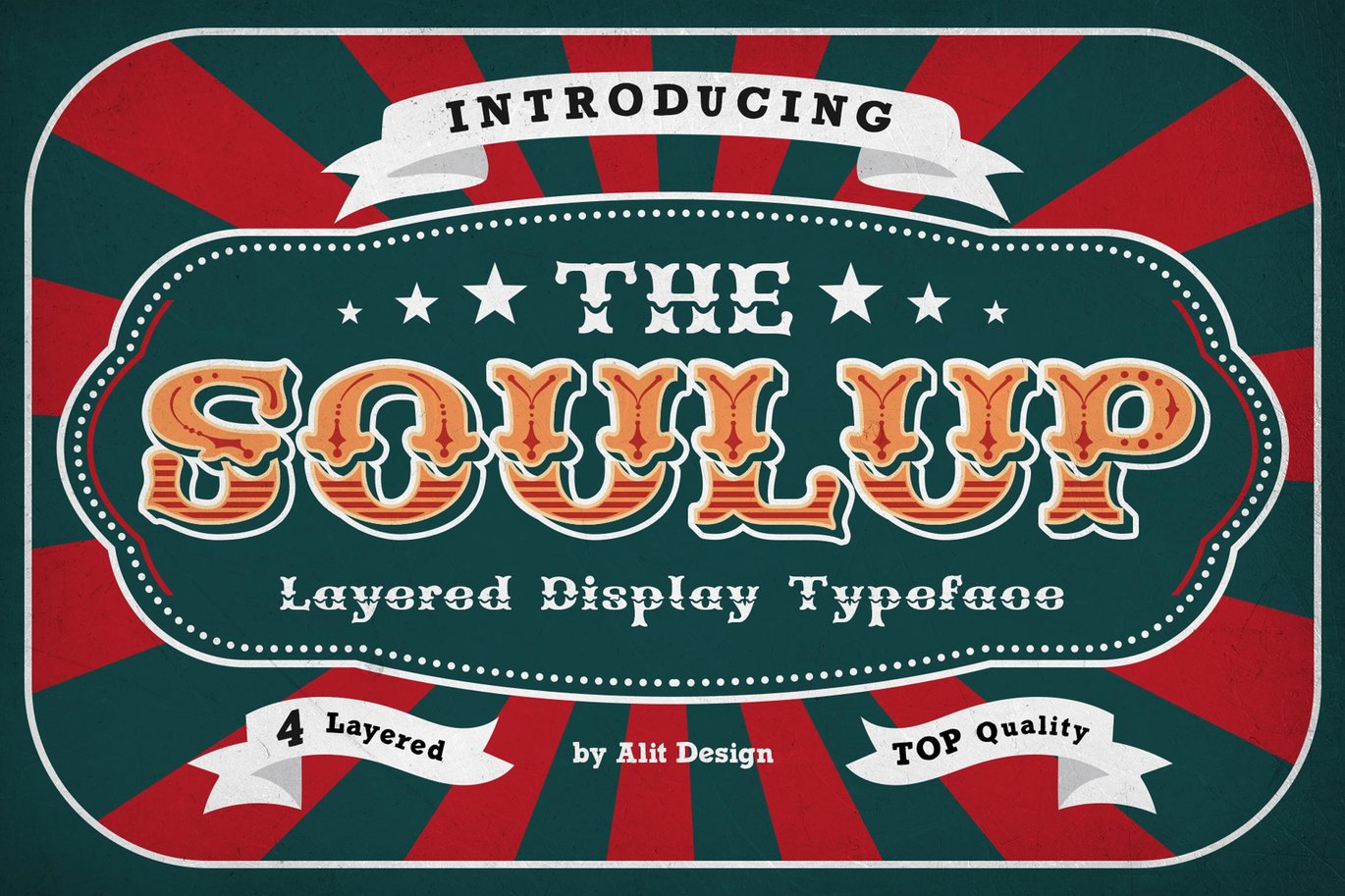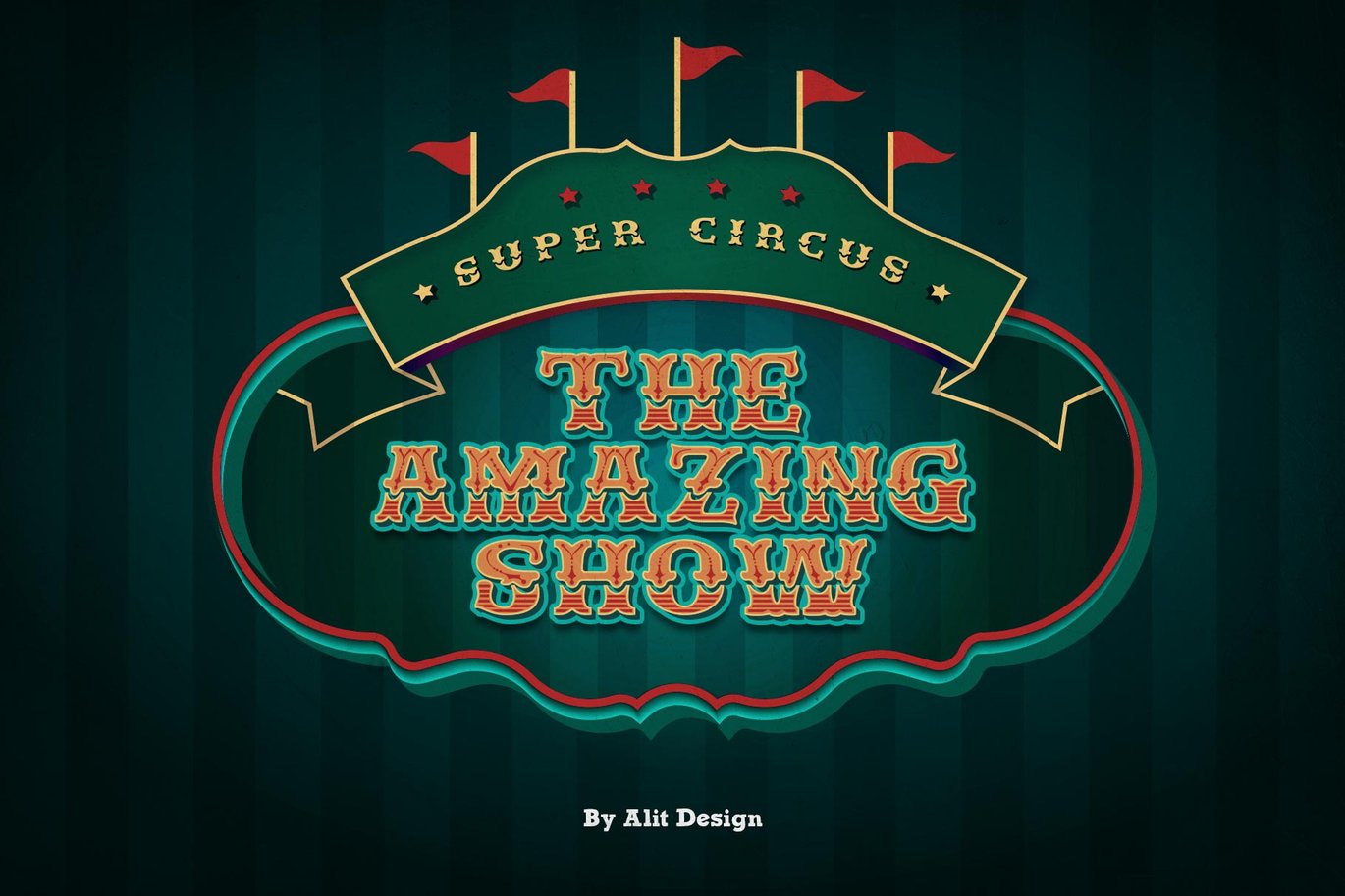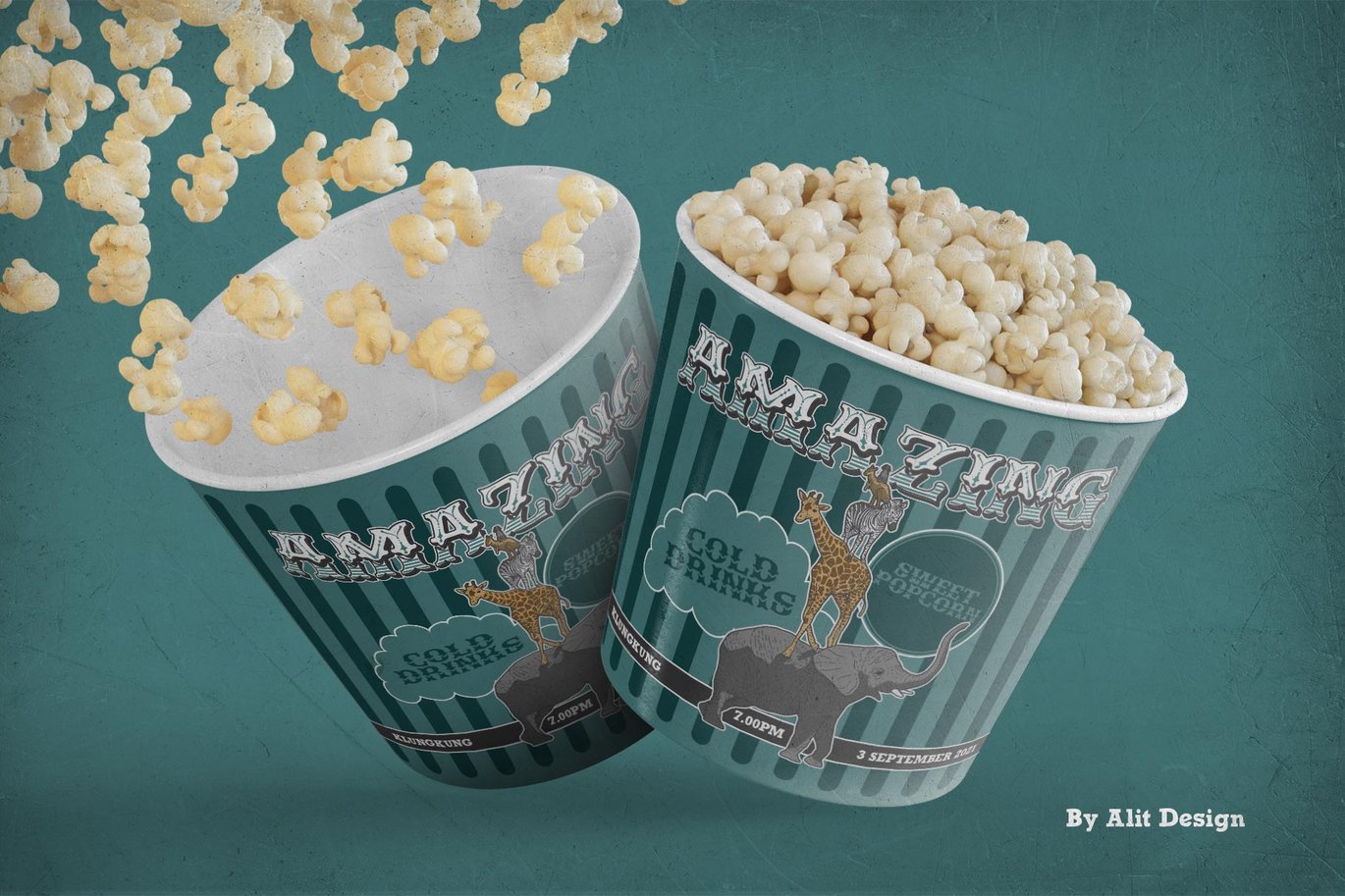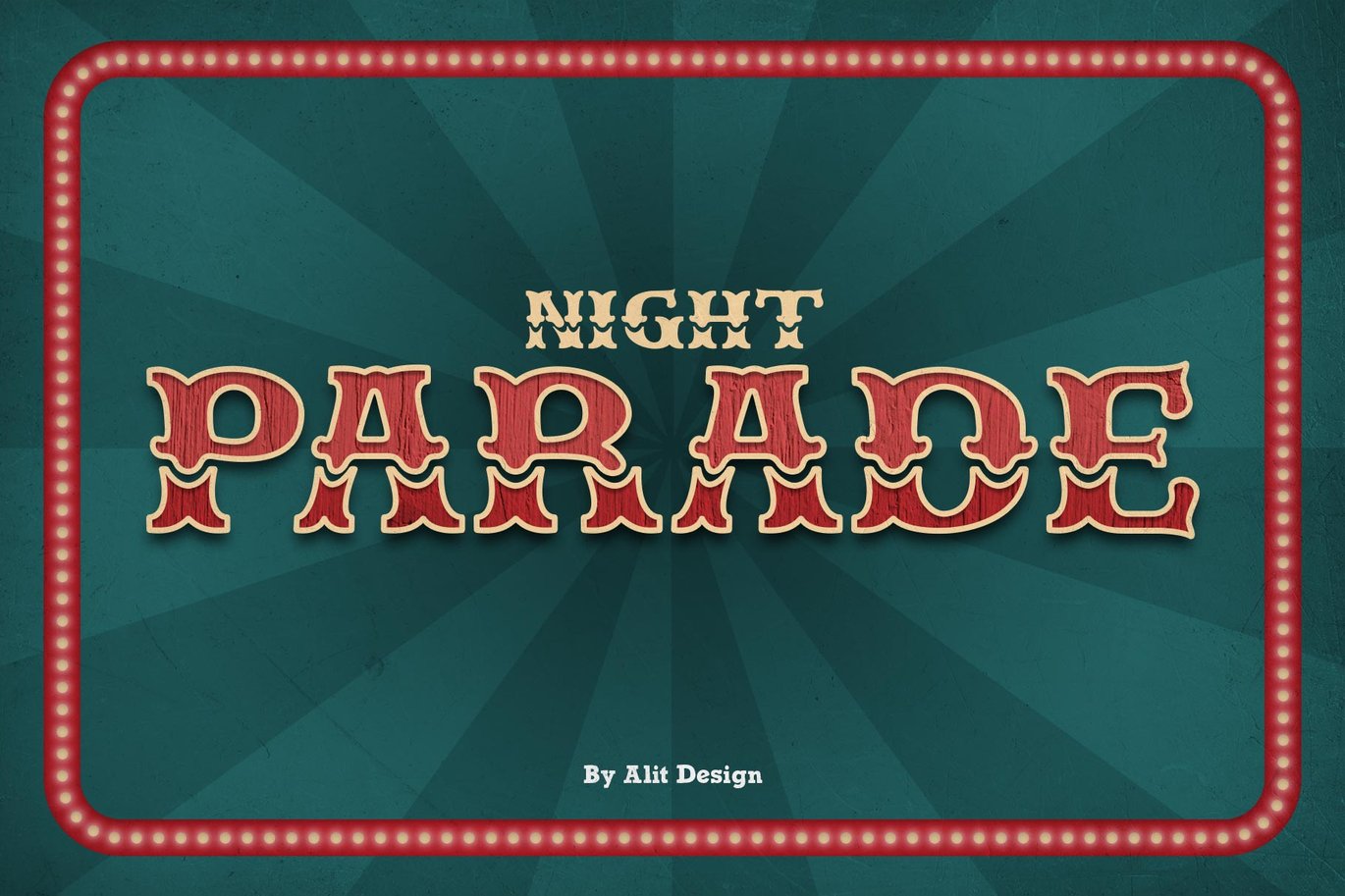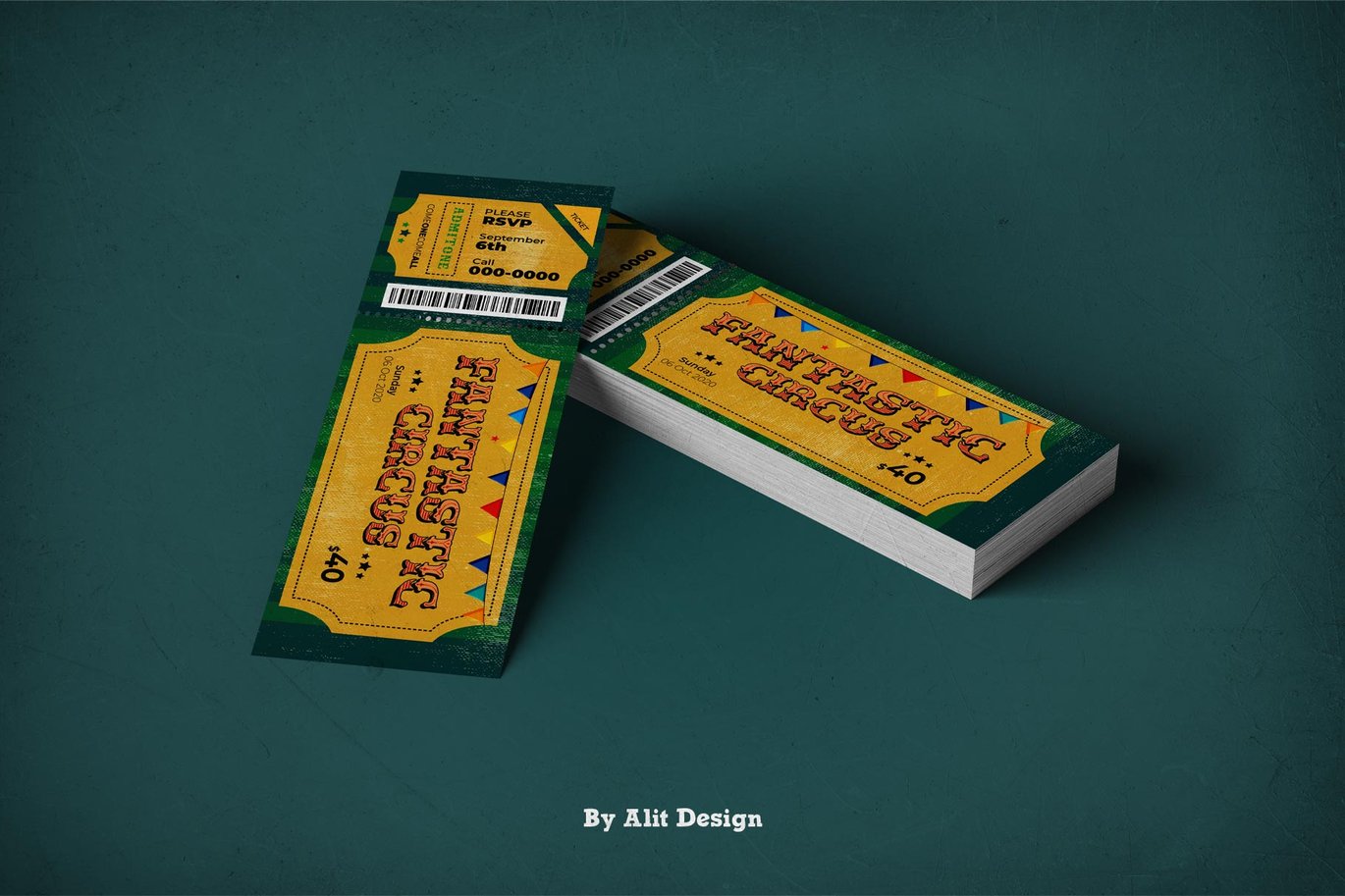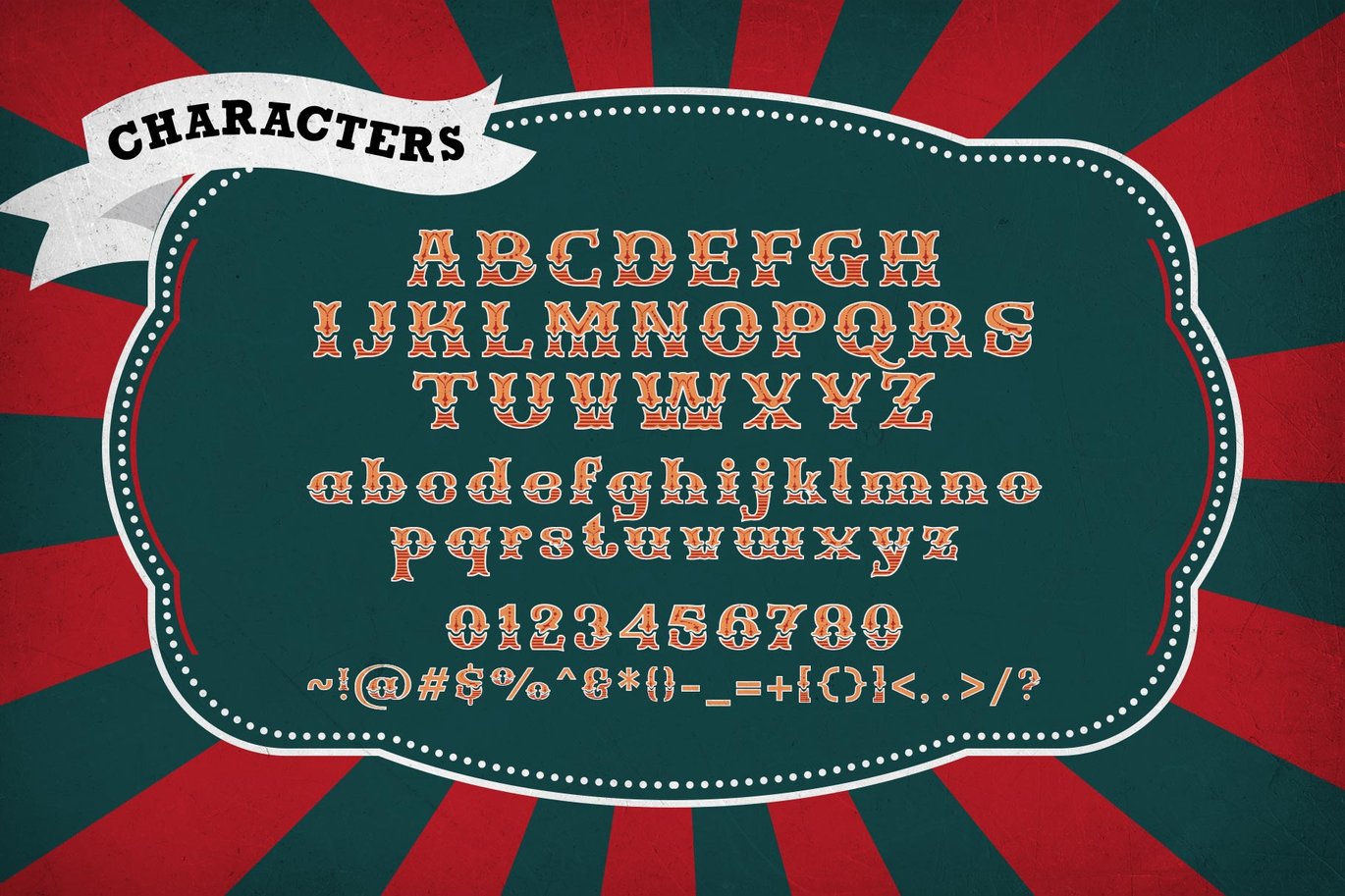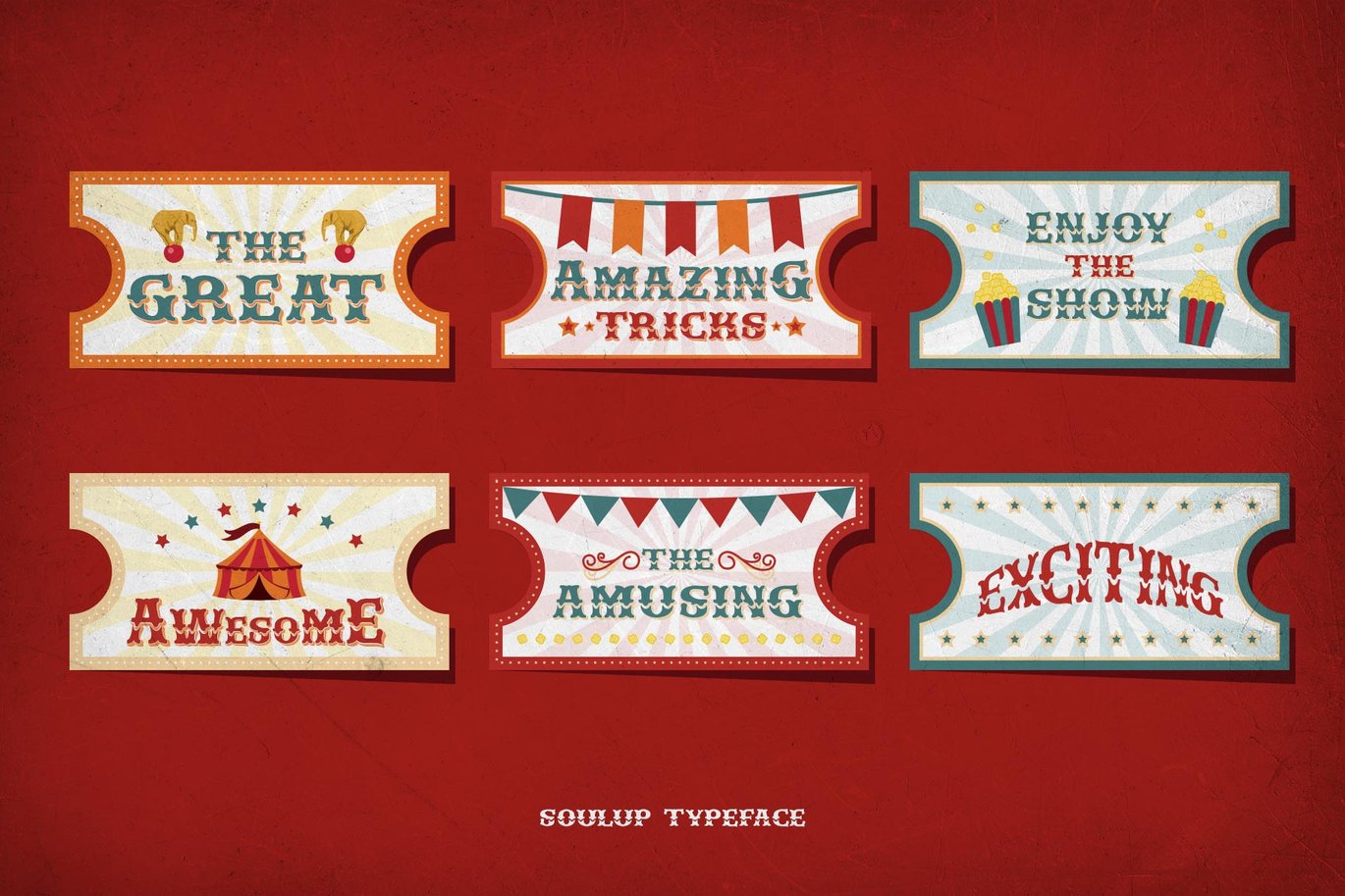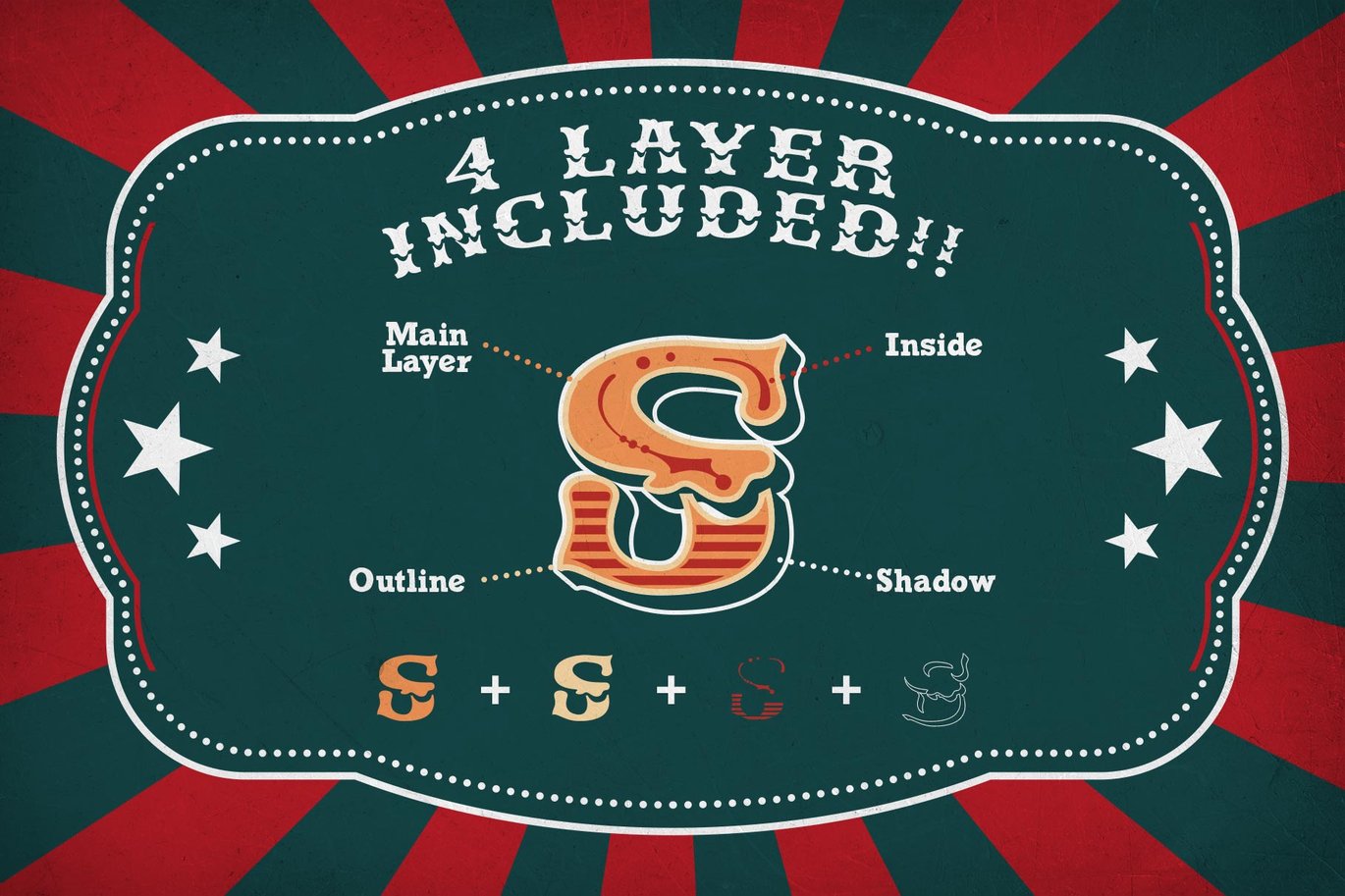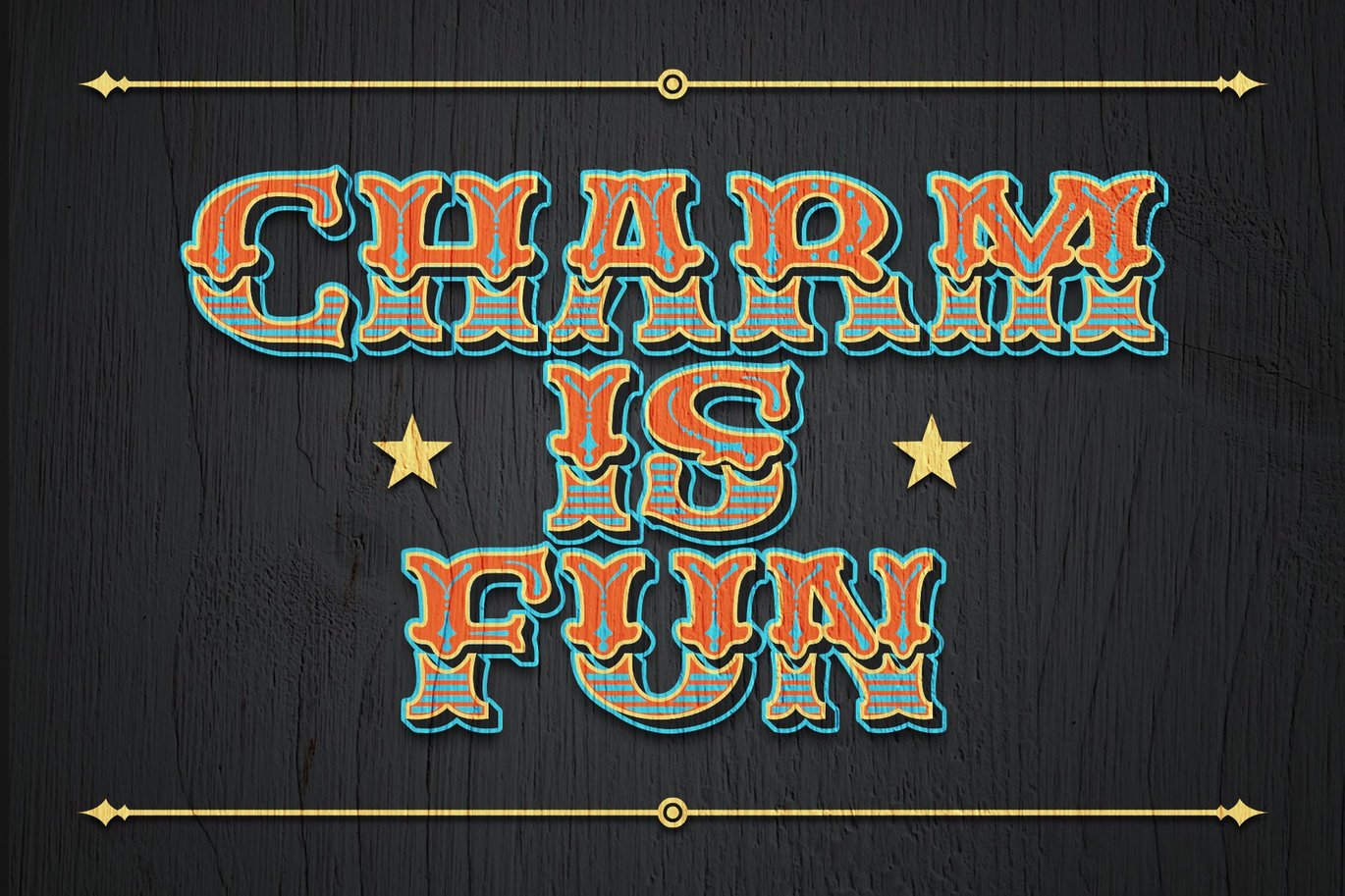
Soulup Typeface
Introducing SOULUP Typeface
The SOULUP typeface is inspired by the fonts on the circus and festival signage. This font is made with a unique and interesting character, besides that the SOULUP typeface has 4 layers which makes this font very easy to use for dimensional designs and different colors.
Classic and decorative serif like “SOULUP Typeface” are very easy to apply to any design, especially those with an retro and sign concept, apart from that this font is very easy to use in both design and non-design programs because all alternates and glyphs are supported by Unicode (PUA).
Bunker Typeface is layered with 4 style.